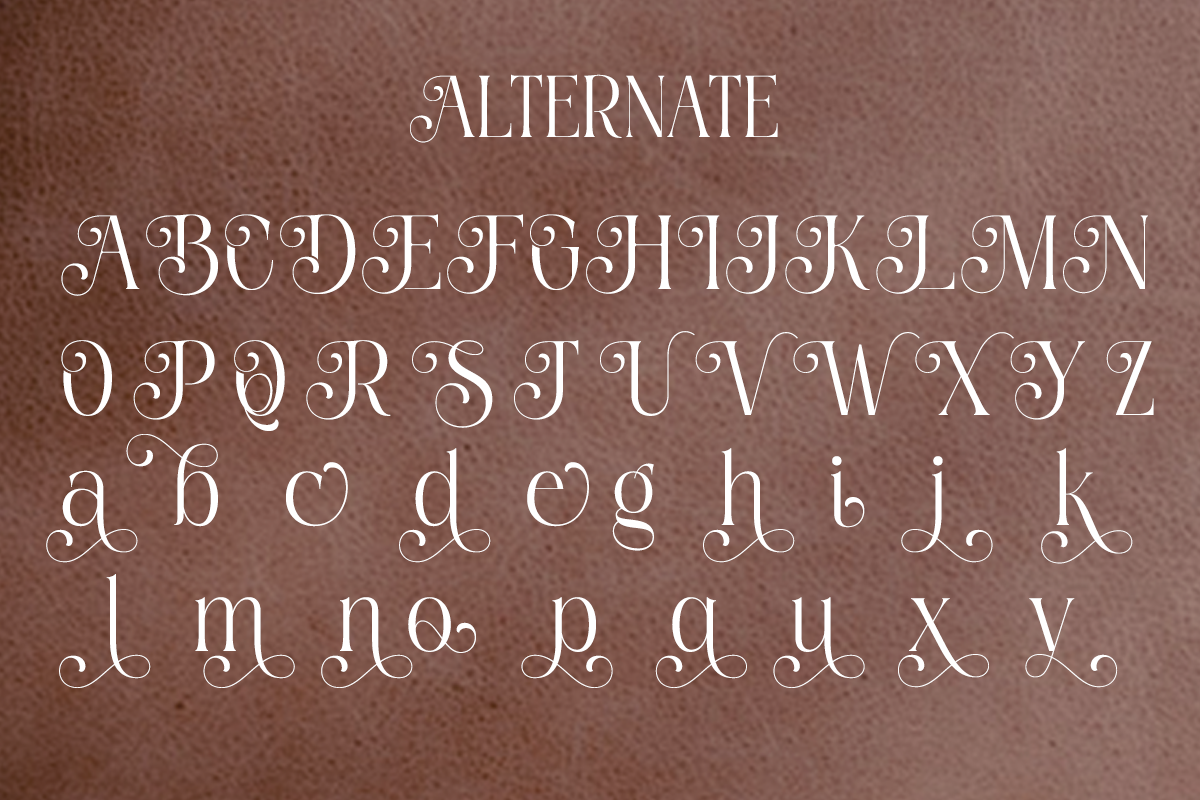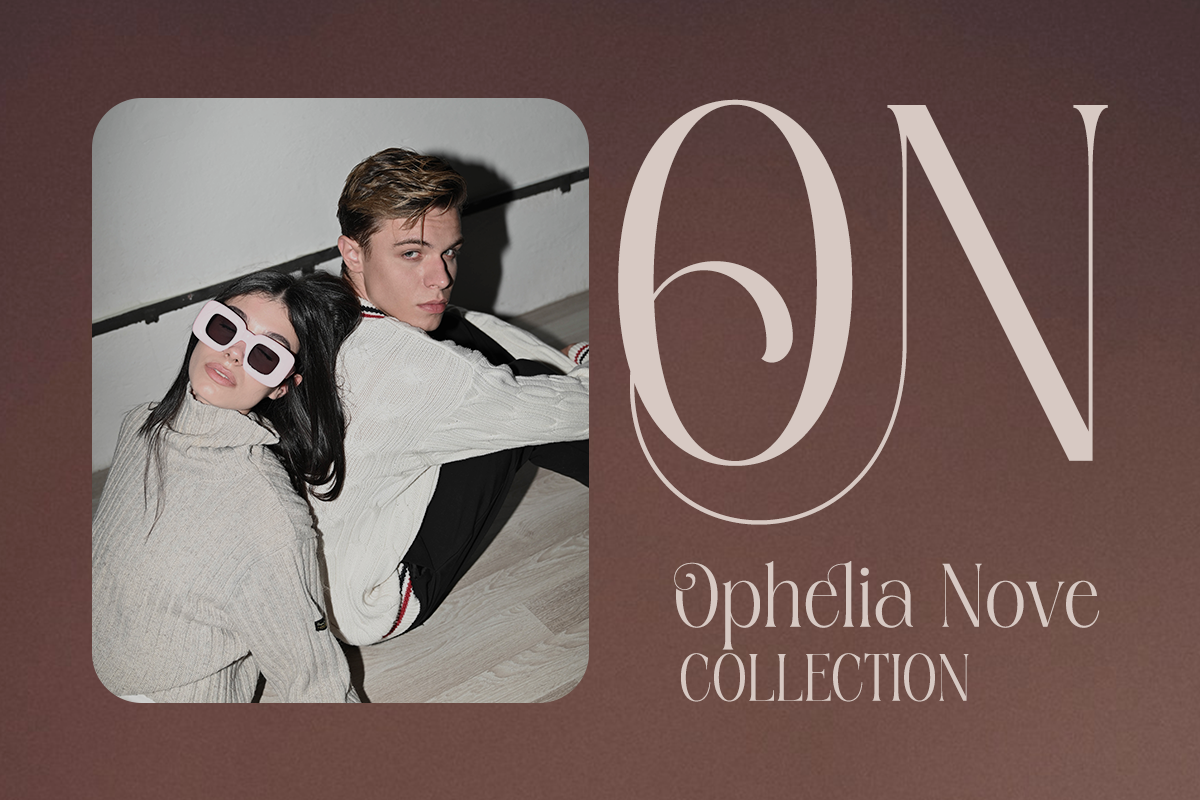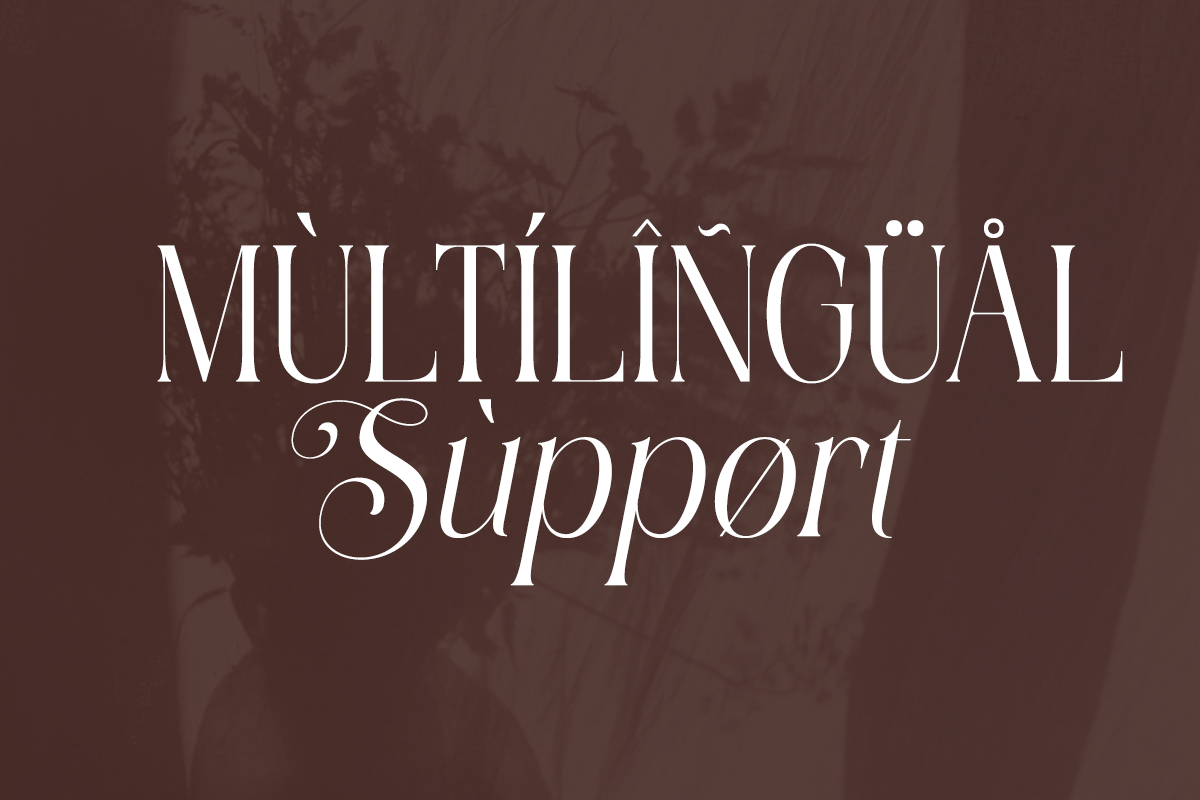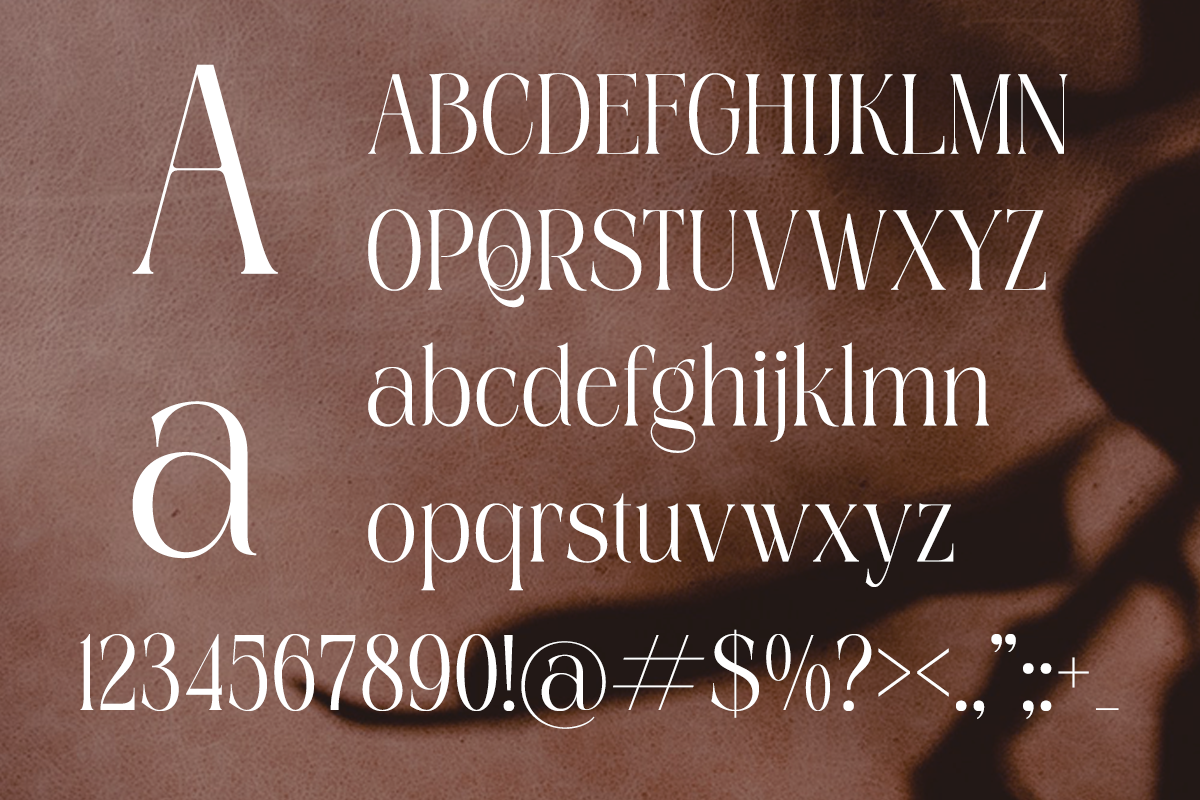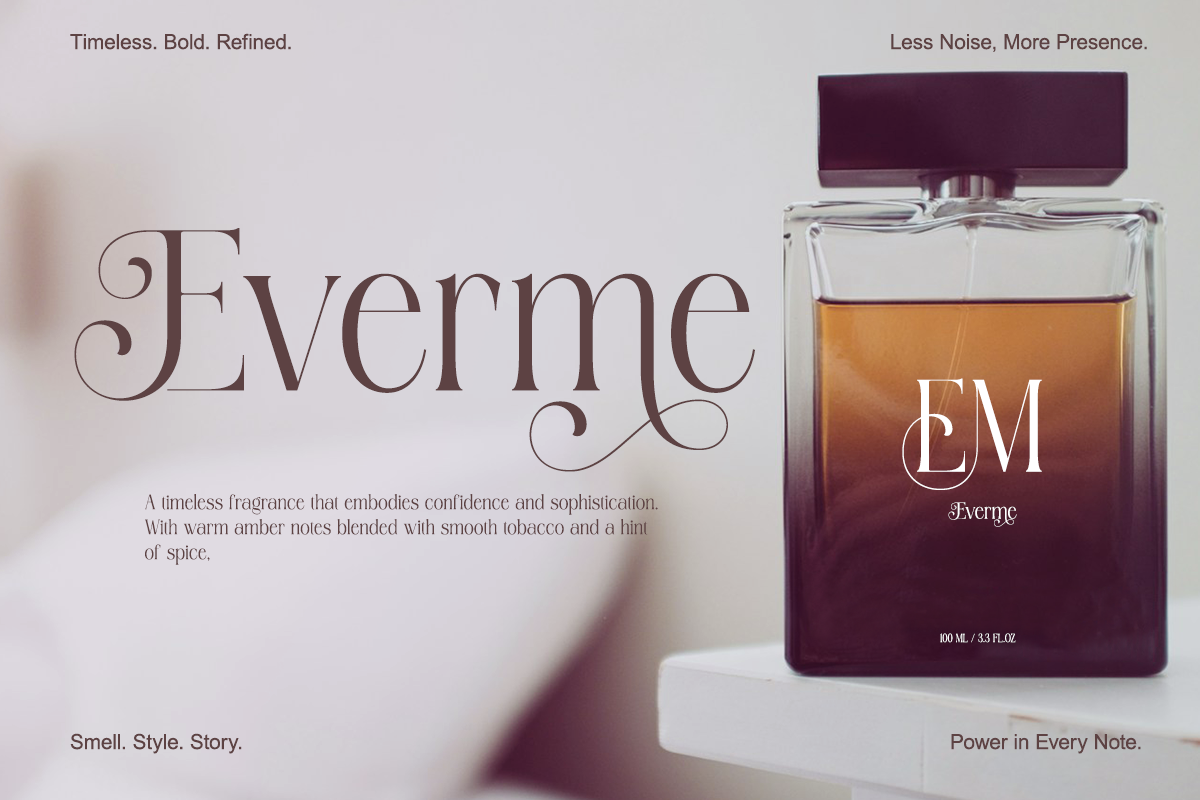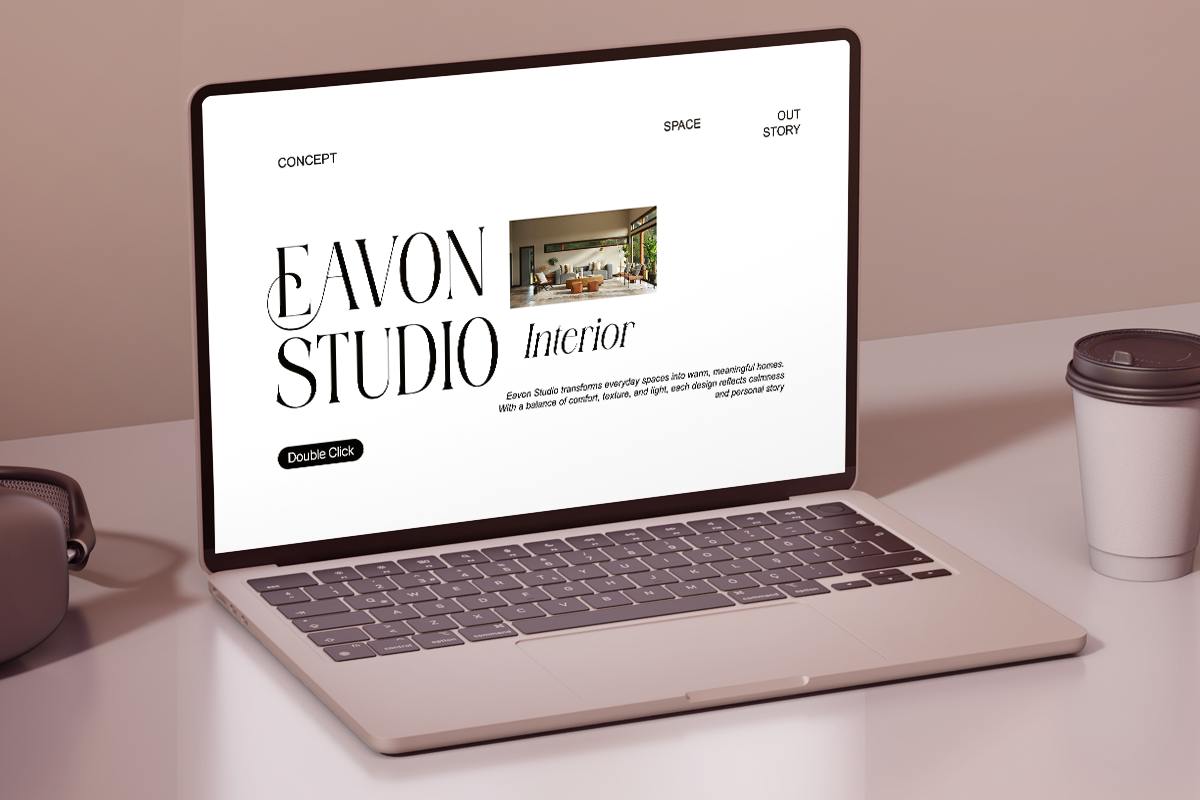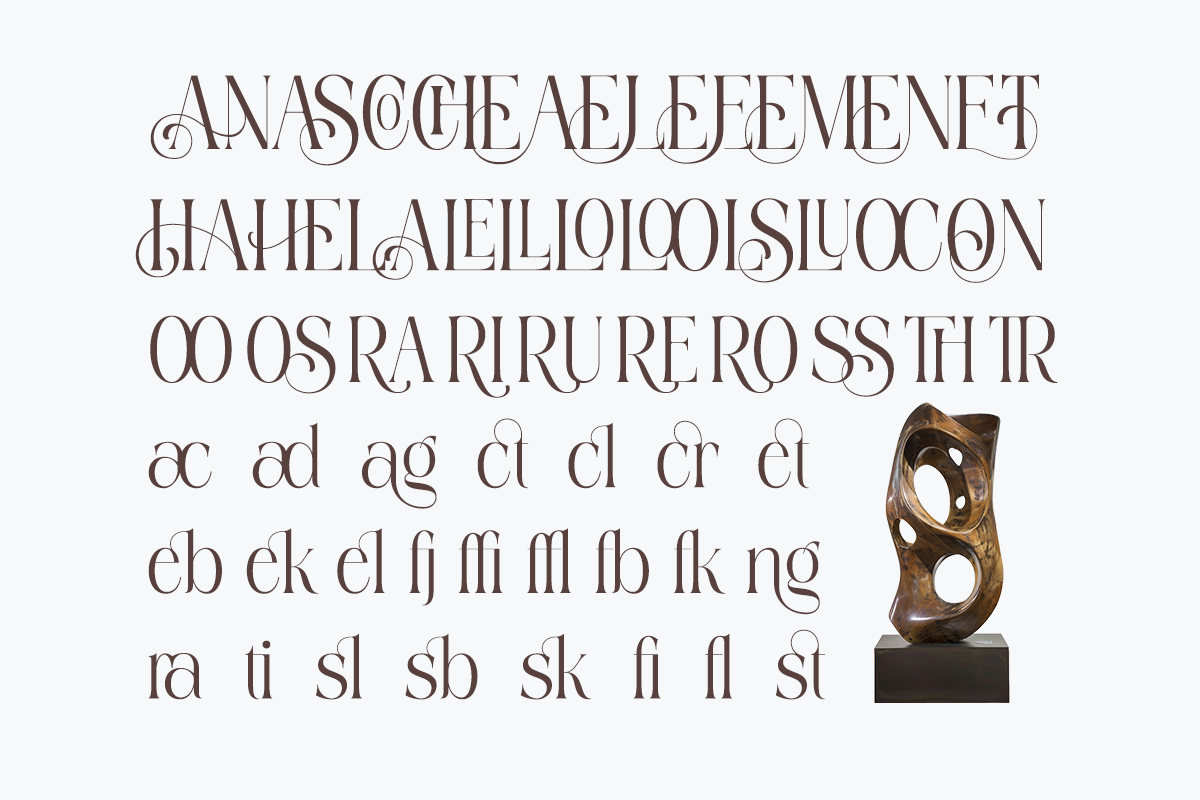
Shine Heels - Elegant Beauty Serif
Introducing Shine Heels, a serif typeface made for beauty-focused design. Blending modern elegance with soft, aesthetic details, this font is perfect for beauty branding, editorial headlines, fashion visuals, and refined logos.
Each letter is crafted to feel graceful, confident, and timeless.
- Alternates & ligatures
- Elegant contrast strokes
Perfect For Beauty brands, cosmetic packaging, fashion logos, editorial design, wedding stationery, magazines, and social media templates.